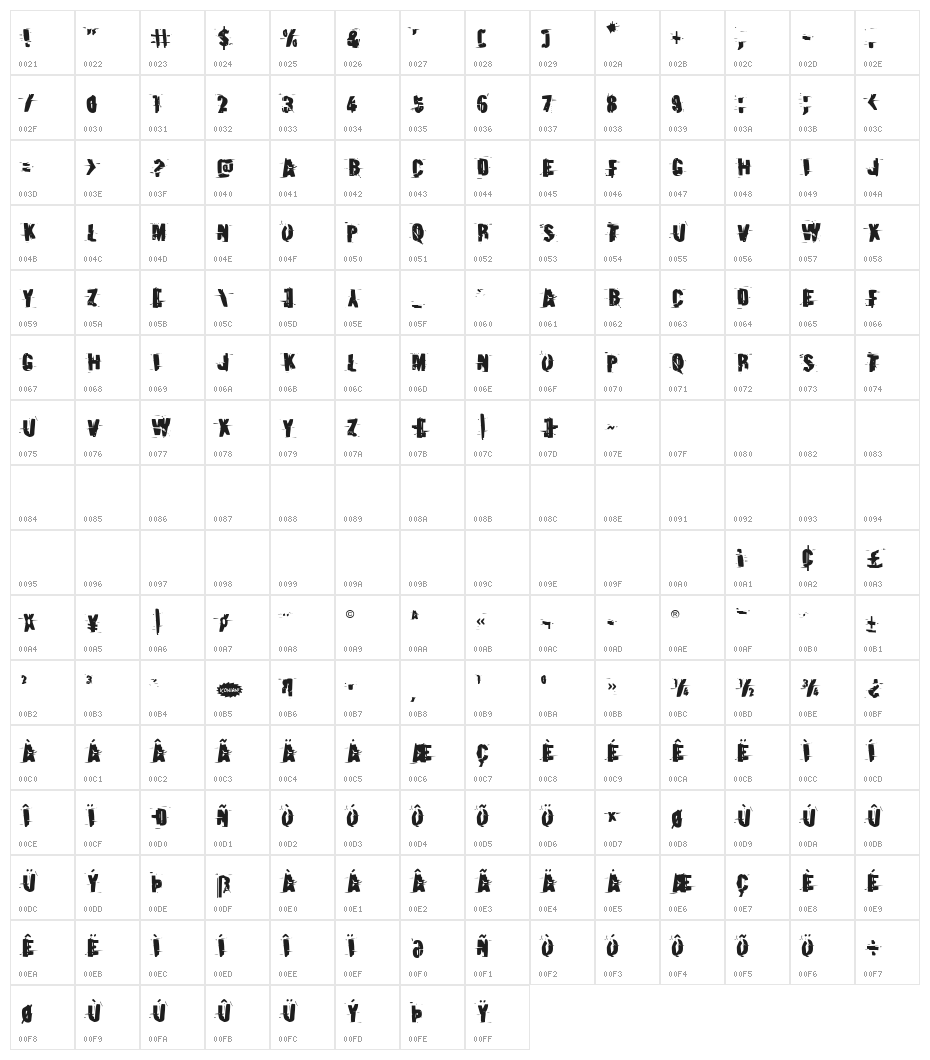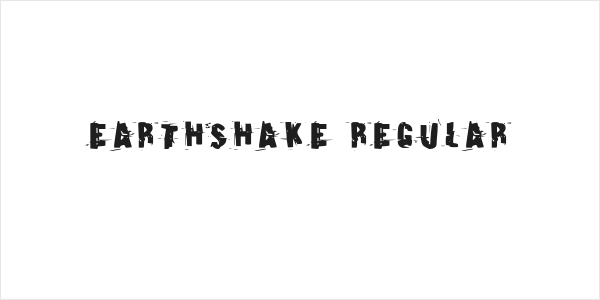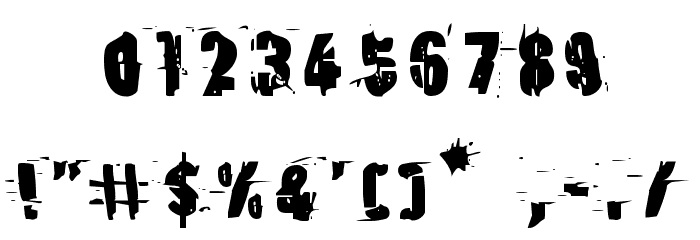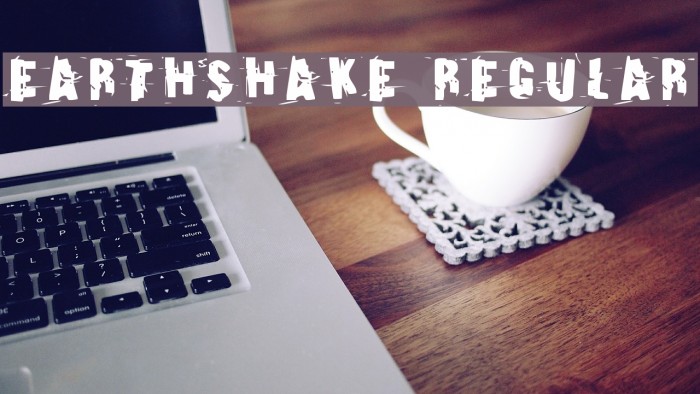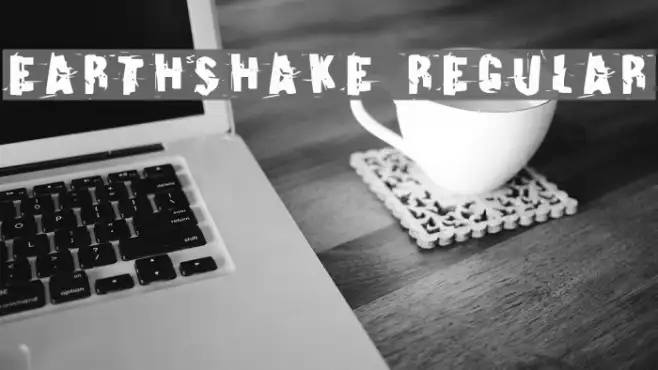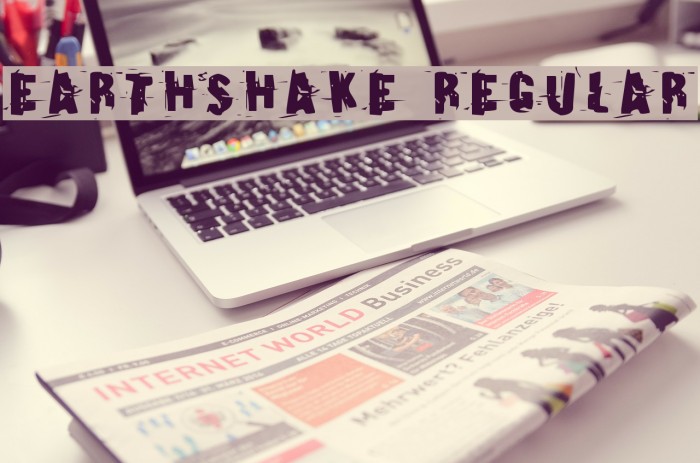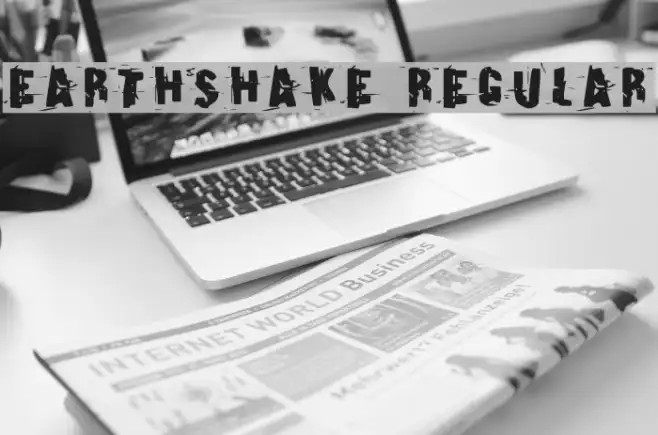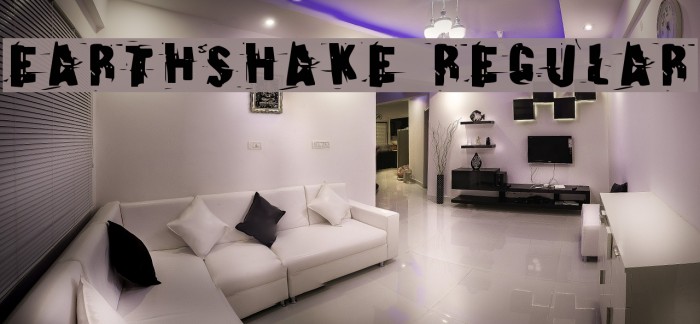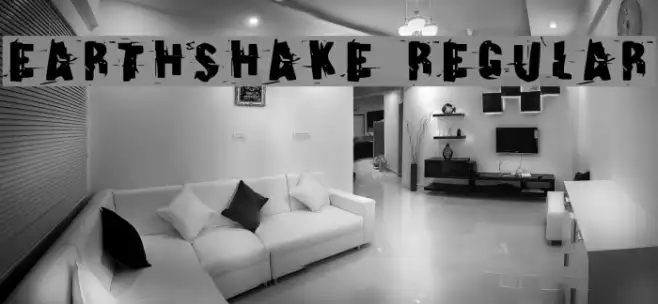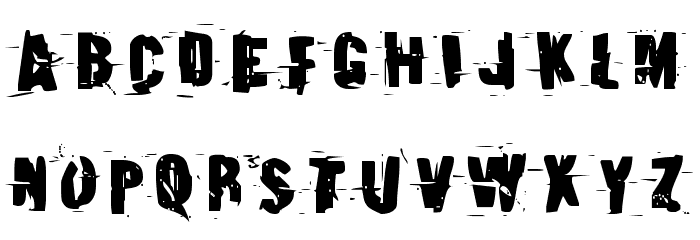
Earthshake Regular Font
Earthshake Regular Description
This font features a bold, distressed style with a rugged and chaotic appearance. The characters are heavily textured, giving the impression of being weathered or eroded. Each letter and number is uniquely distressed, adding to the overall grunge aesthetic. The font's irregular edges and rough texture create a dynamic and energetic feel, making it stand out in any design. It's perfect for projects that require a bold statement or a touch of rebellion. The font maintains legibility despite its distressed nature, ensuring that the message is conveyed clearly.
| Overall Style | Grunge, Urban, Edgy |
| Use Case | Headlines, Posters, Branding |
| Proposed Projects | Ideal for music album covers, posters, urban-themed designs, and any project needing a bold, edgy look. |